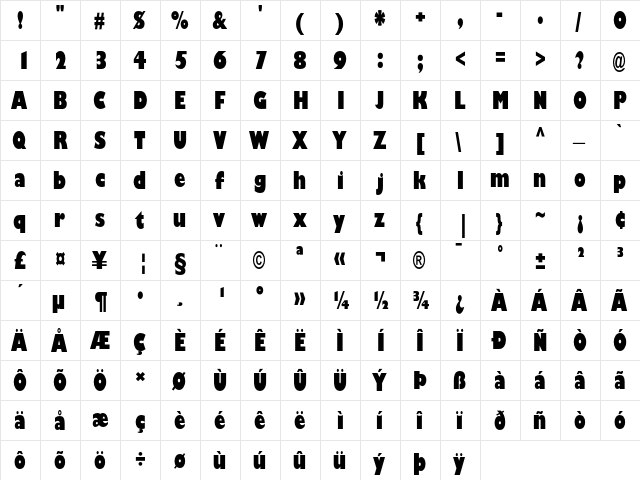
Gill Sans Ultra Bold Condensed
Design Context for Gill Sans Typeface
Gill Sans takes a measured approach to typography — its balanced proportions and neutral character make it a reliable workhorse for both digital and print work. Its bold stroke weight gives it real presence on the page. The condensed width makes it efficient for tight spaces without sacrificing legibility.